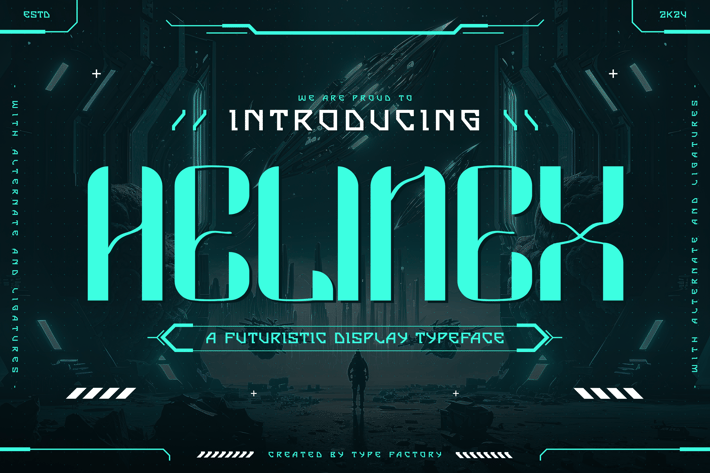
Helinex - Futuristic Display Typeface
Helinex is a bold futuristic display typeface that captures the sleek aesthetics of sci-fi and modern design. With its sharp angles, geometric shapes, and innovative letterforms, Helinex is perfect for tech-focused branding, video game interfaces, futuristic posters, and digital artwork. This typeface evokes a sense of cutting-edge technology and forward-thinking design, making it ideal for projects that need a clean, high-tech look. Helinex adds a futuristic edge to your designs, ensuring a standout, modern appeal.